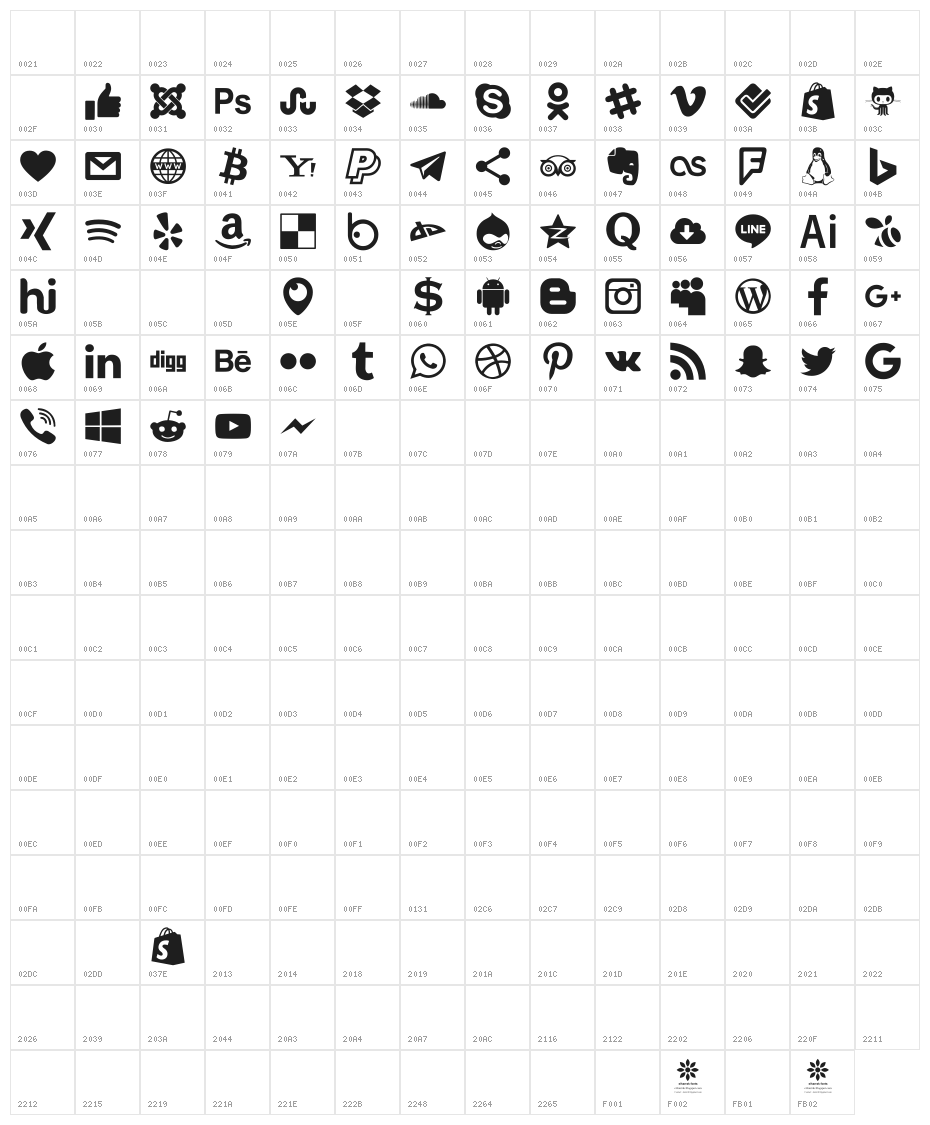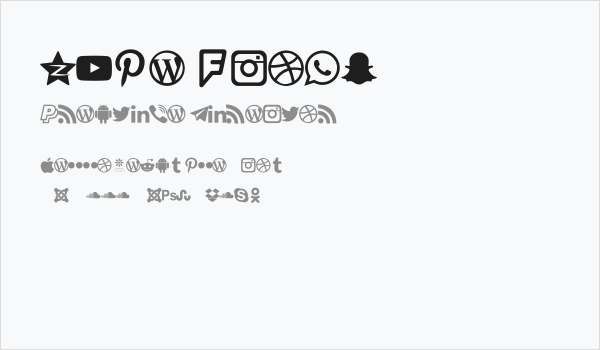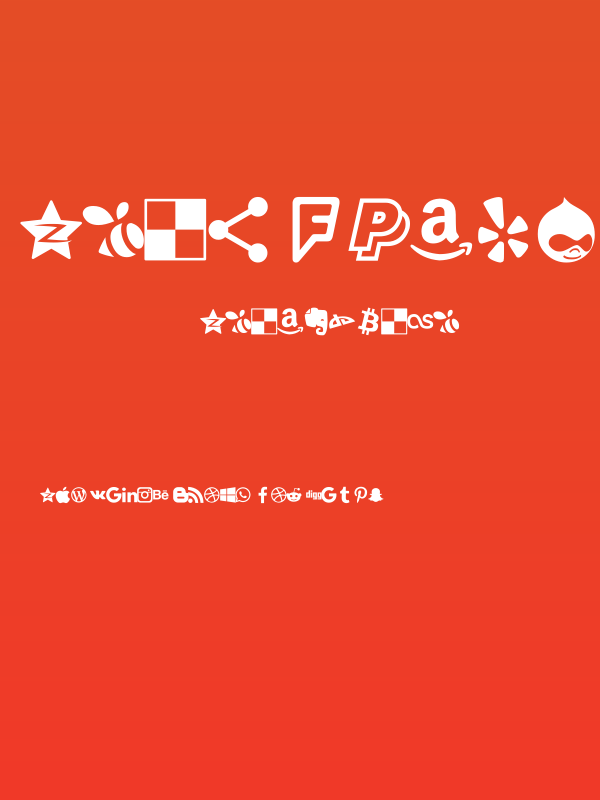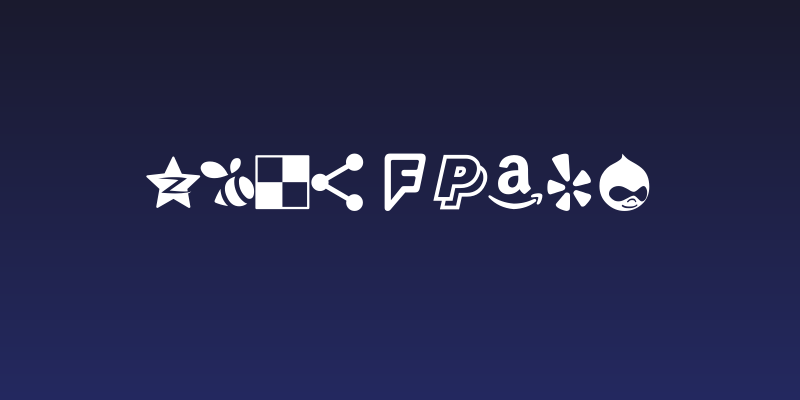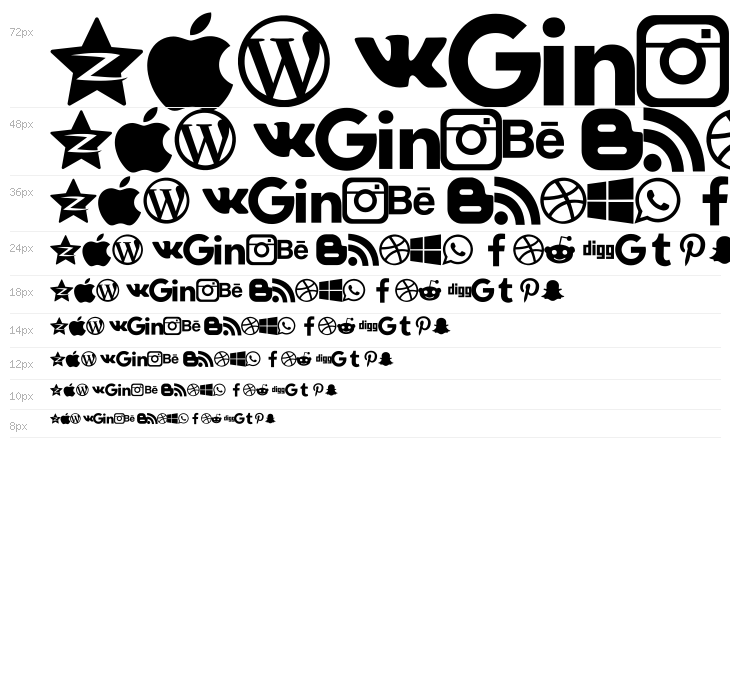
Type Icons Font
A collection of bold, solid, monochrome icons representing various popular brands, social media platforms, and digital services. The icons are highly recognizable, simple, and designed for clarity at small sizes.
| Overall Style | Modern, Decorative |
| Use Case | Icons, UI elements, navigation, branding. |
| Proposed Projects | App interfaces, website footers, social media links, presentations, infographics, UI/UX mockups. |